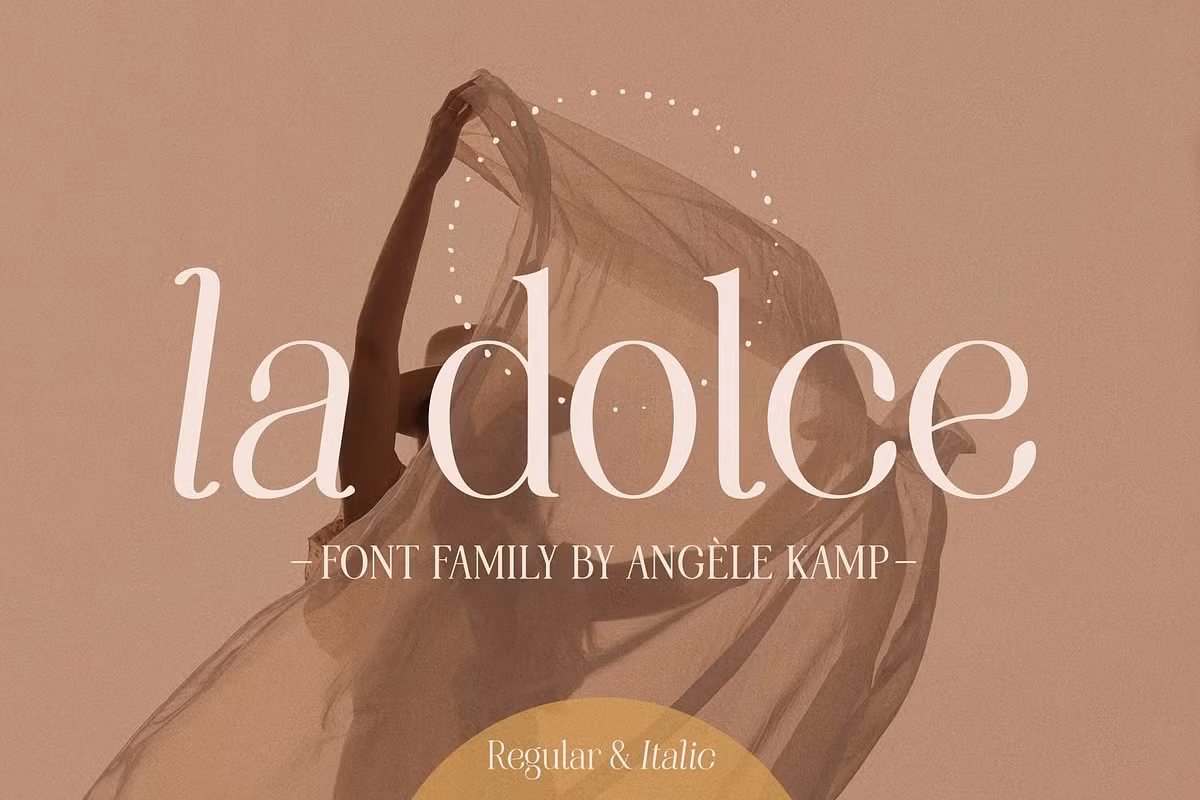
You must purchase this font for commercial use. However, you can download La Dolce – Modern Serif Font Family Free Download for testing purposes. La Dolce is a sophisticated modern serif font family designed to bring elegance and readability to your designs. With a blend of classic serif detailing and contemporary structure, this font family is perfect for branding, editorial layouts, websites, product packaging, and high-end marketing materials.
The La Dolce font family includes multiple weights and styles, giving you the flexibility to use it for everything from bold headlines to refined body text. Whether you're designing a luxury brand, creating an editorial magazine spread, or working on a stylish web layout, La Dolce will add a timeless, elegant touch to your typography.